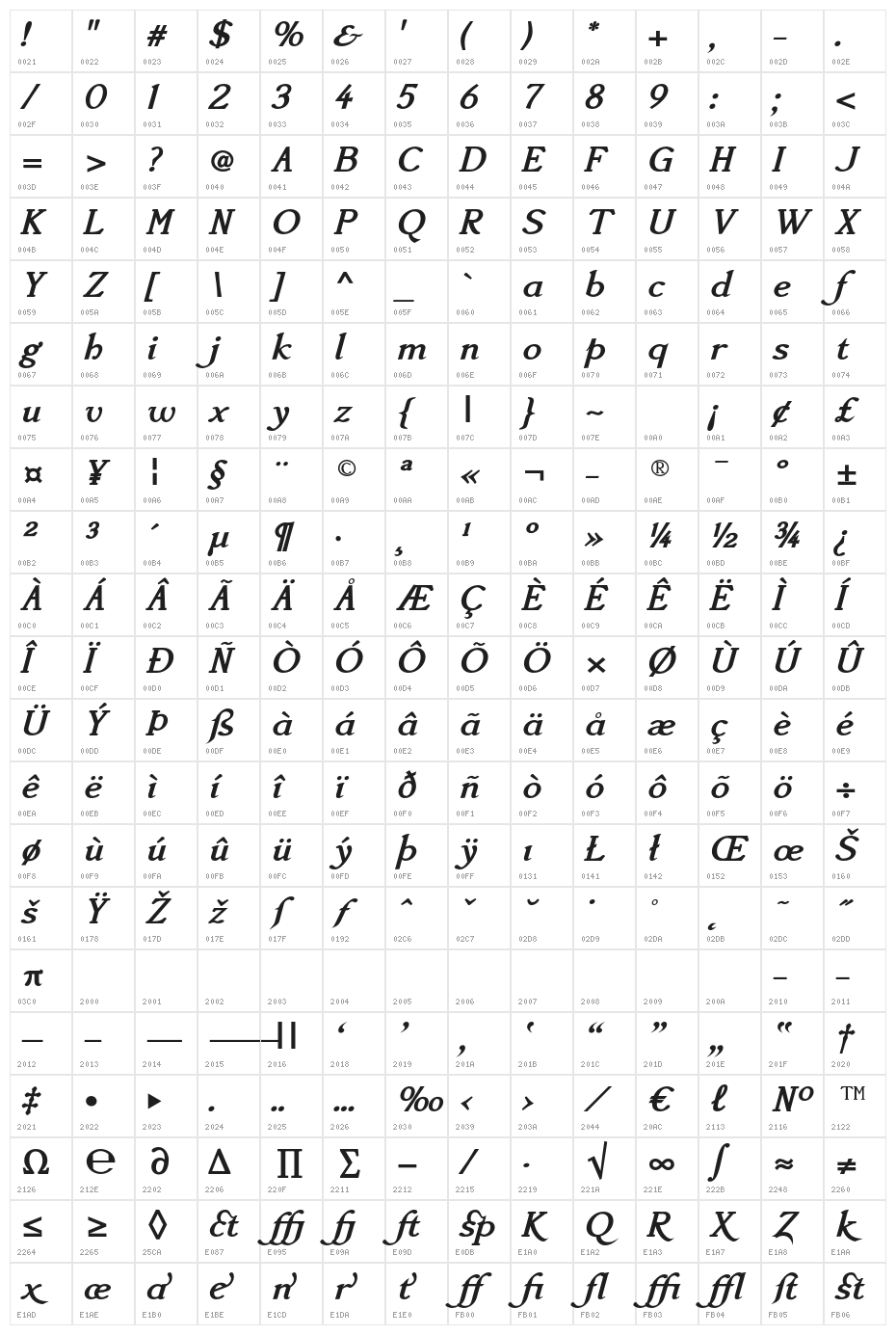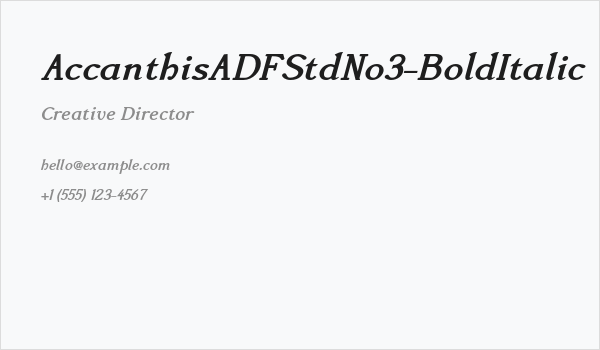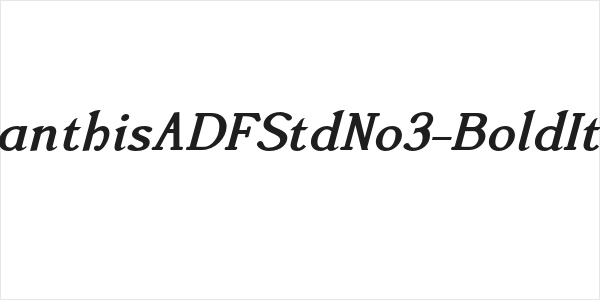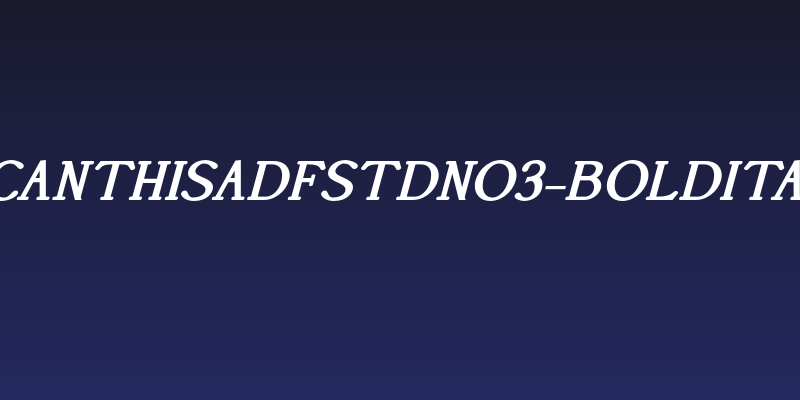
AccanthisADFStdNo3-BoldItalic Font
AccanthisADFStdNo3-BoldItalic Description
This font features a classic serif style with elegant curves and a sophisticated italic slant. The characters are well-defined with a bold weight, providing a strong presence on the page. The uppercase letters are slightly taller than the lowercase, maintaining a traditional serif structure. The numerals are consistent in style, complementing the alphabetic characters. Special characters are included, offering versatility for various text compositions. The overall design exudes a timeless quality, suitable for formal and professional applications.
| Proposed Projects | Ideal for book covers, formal invitations, branding materials, and editorial design. |